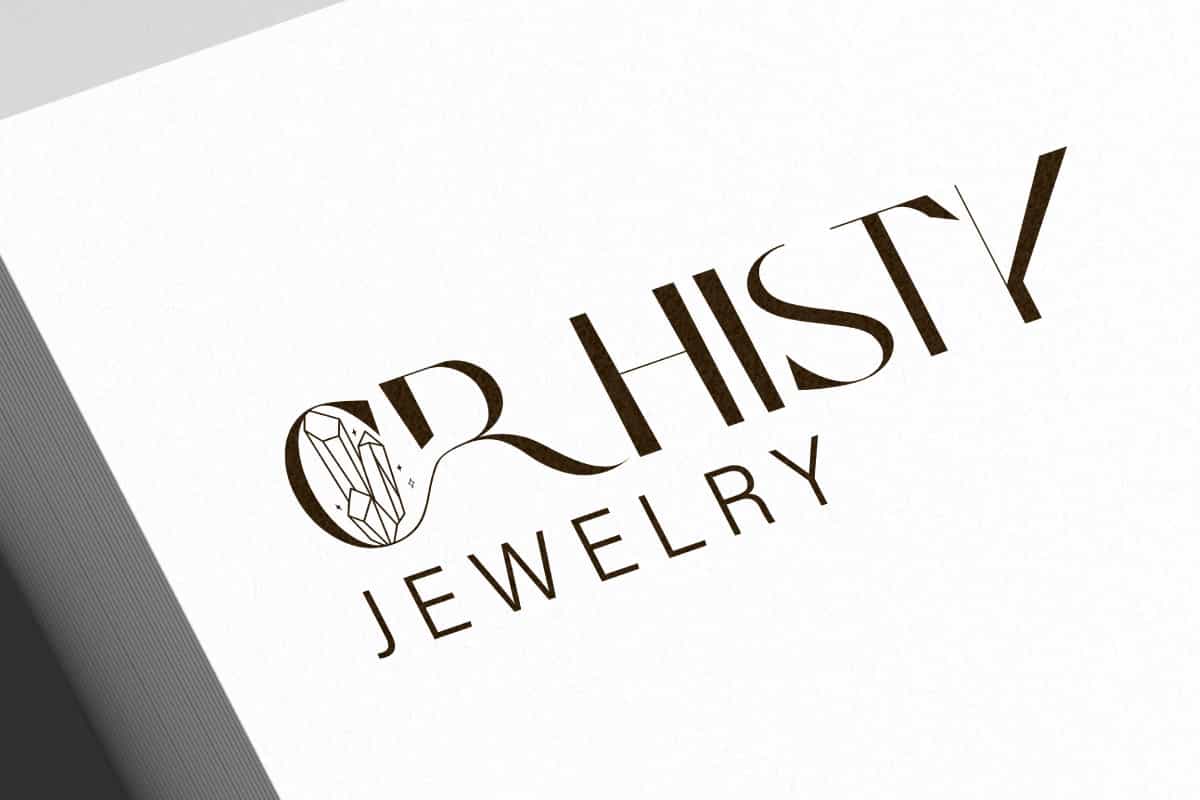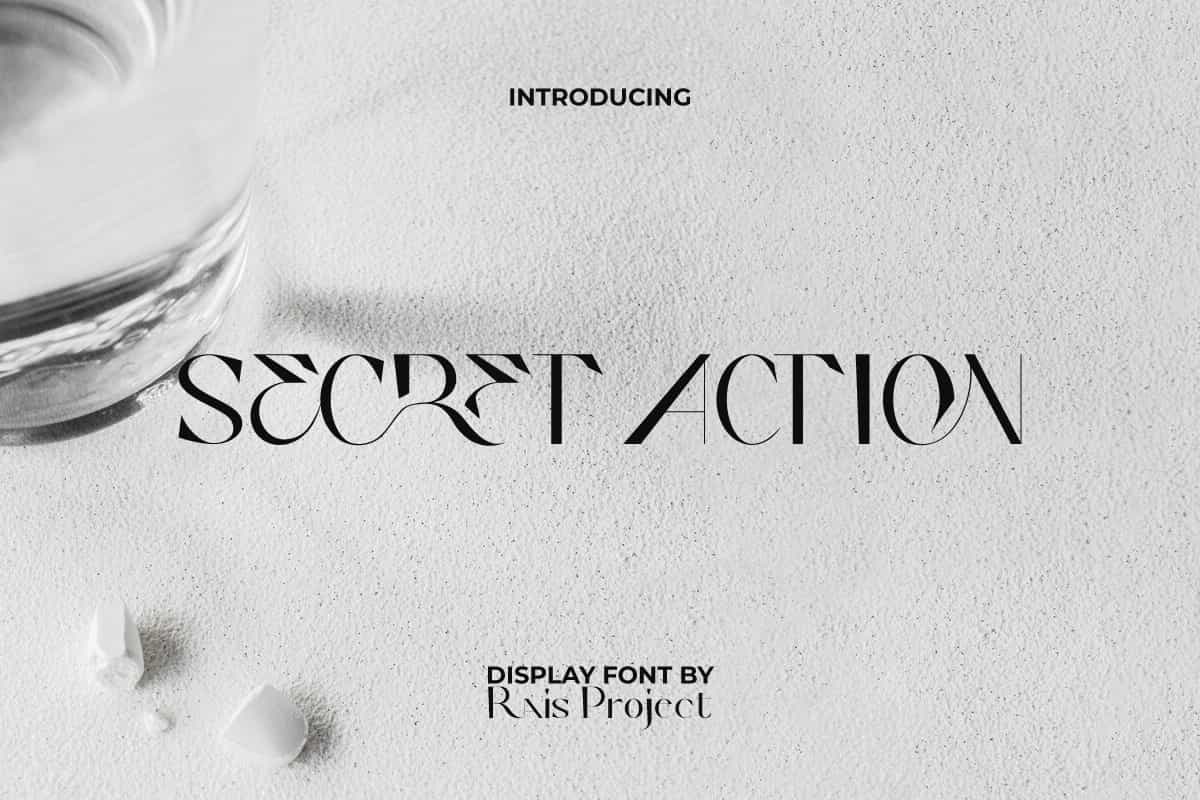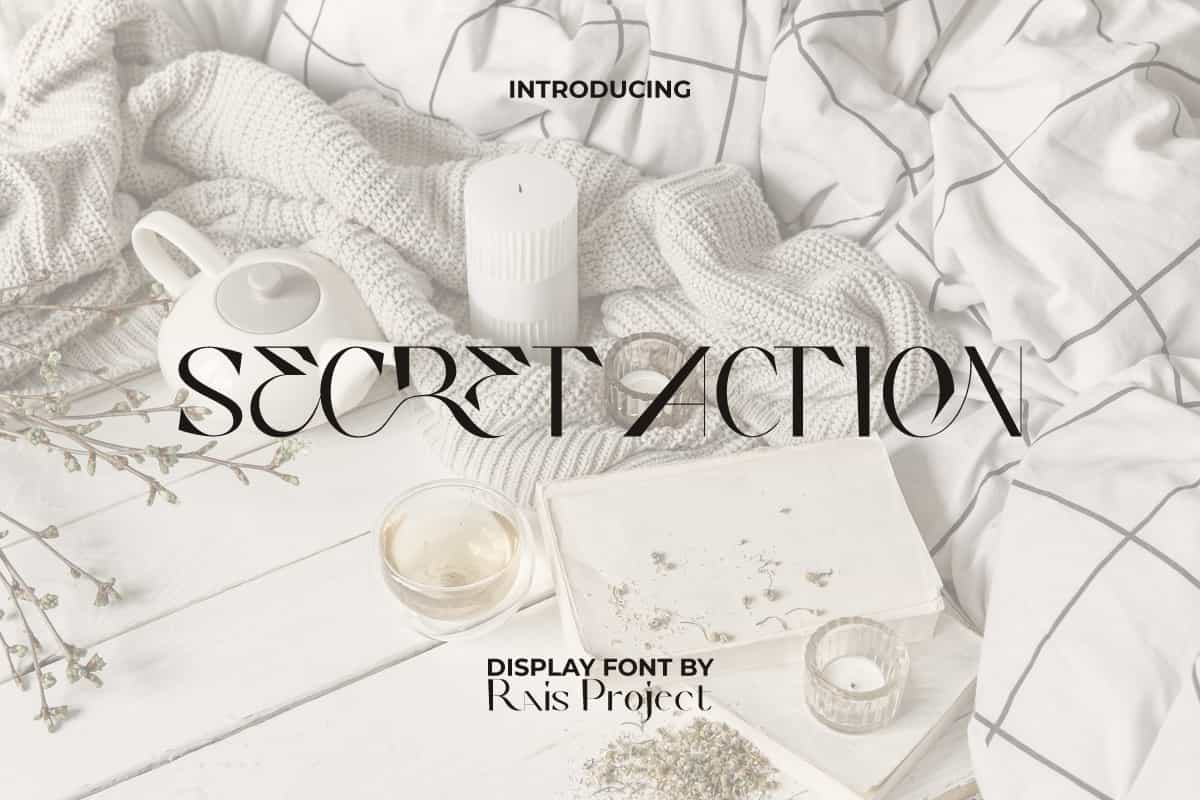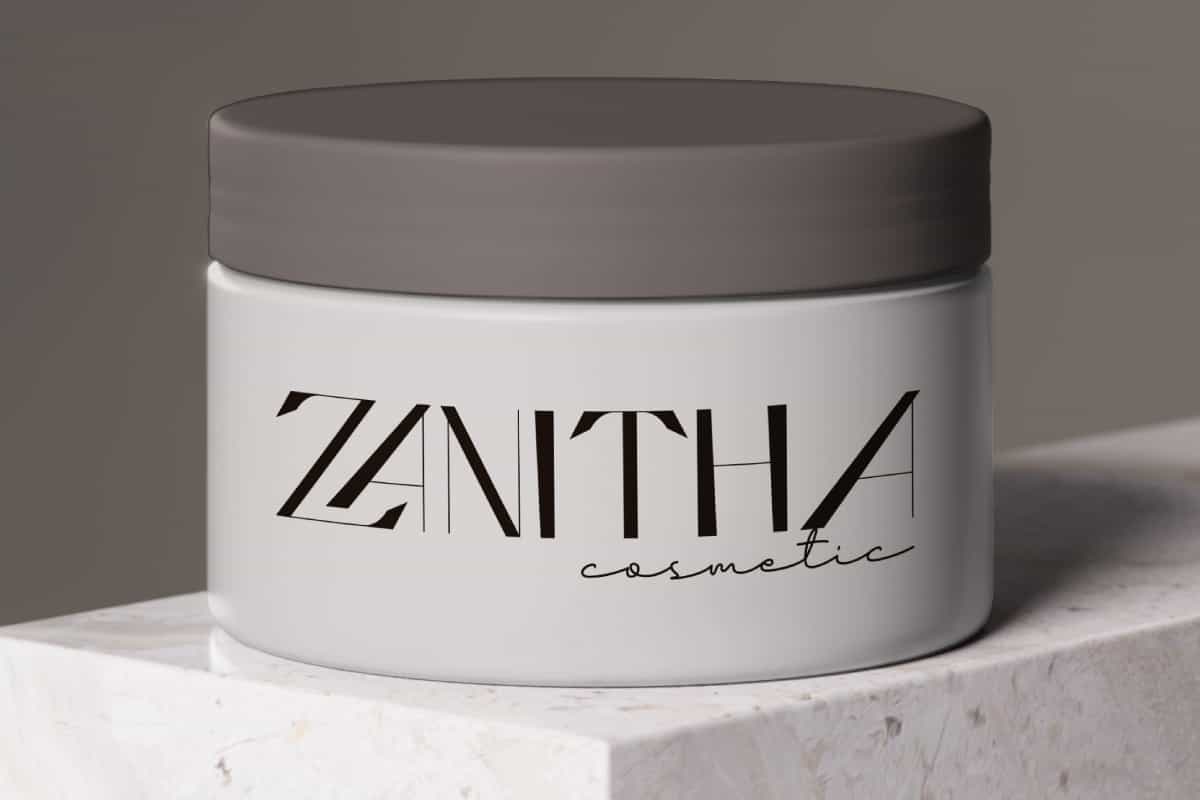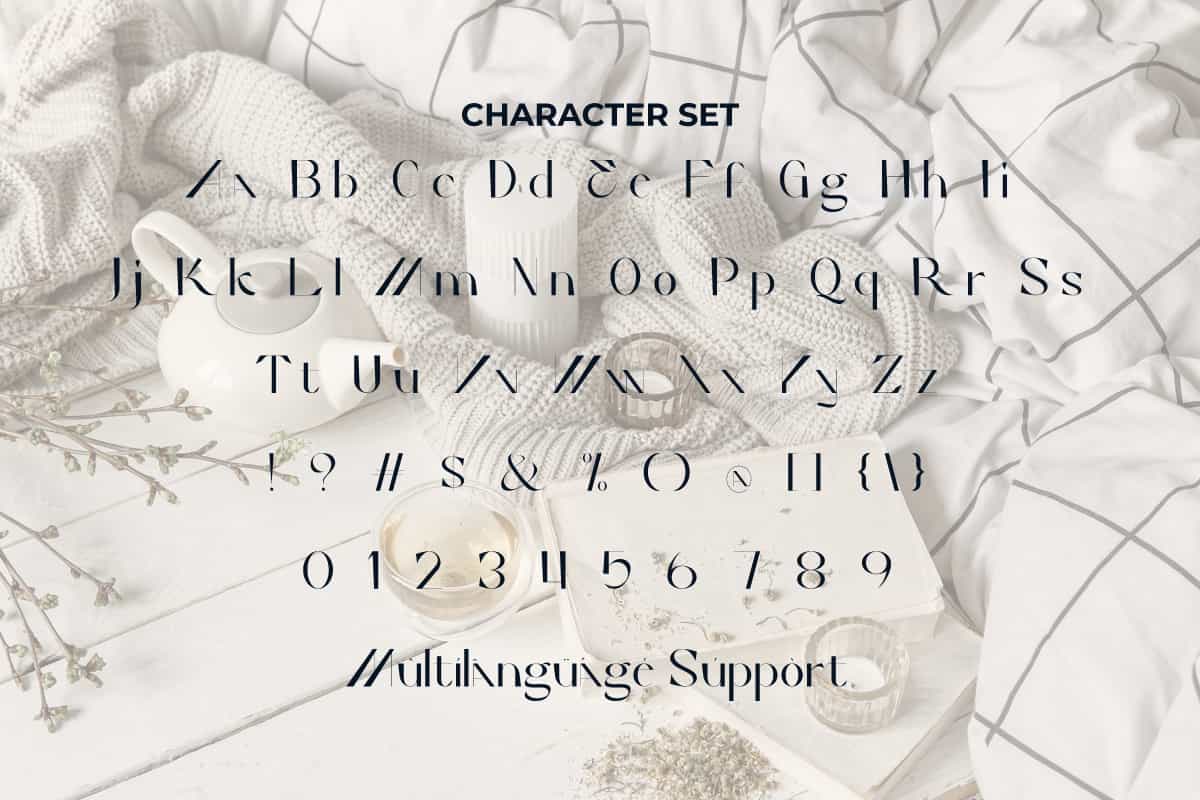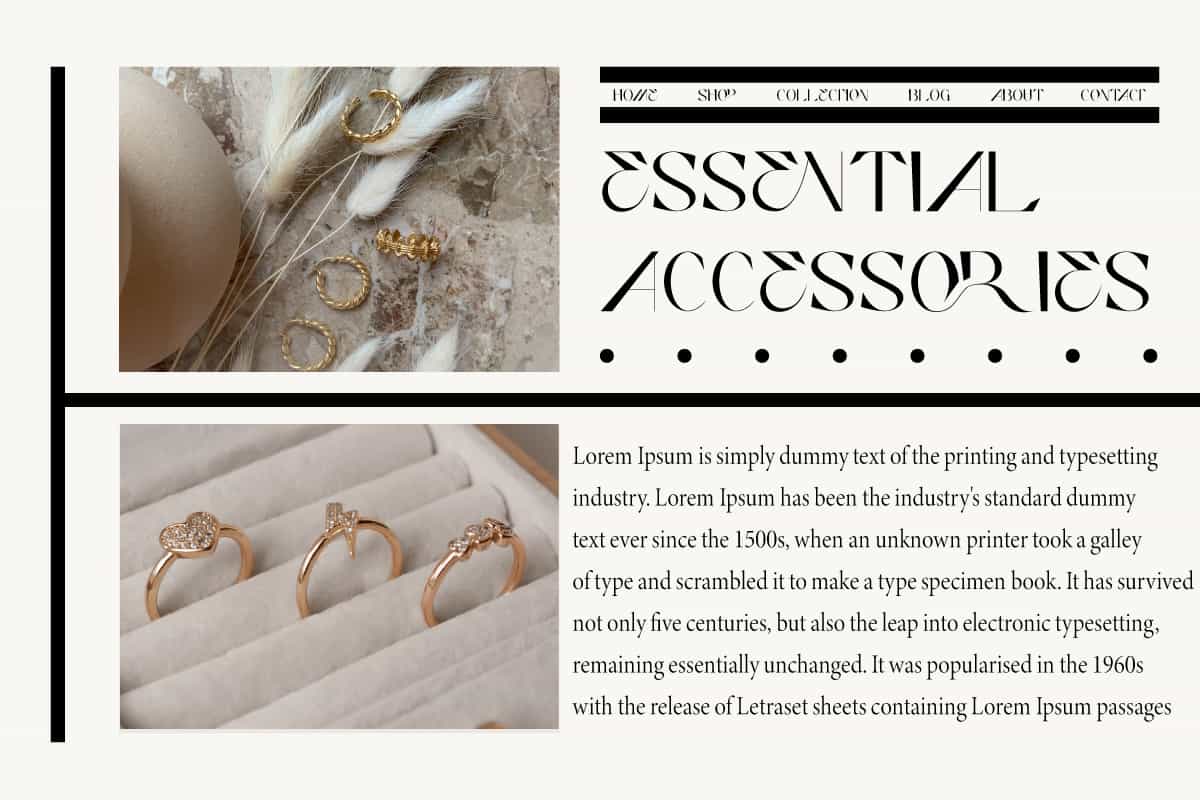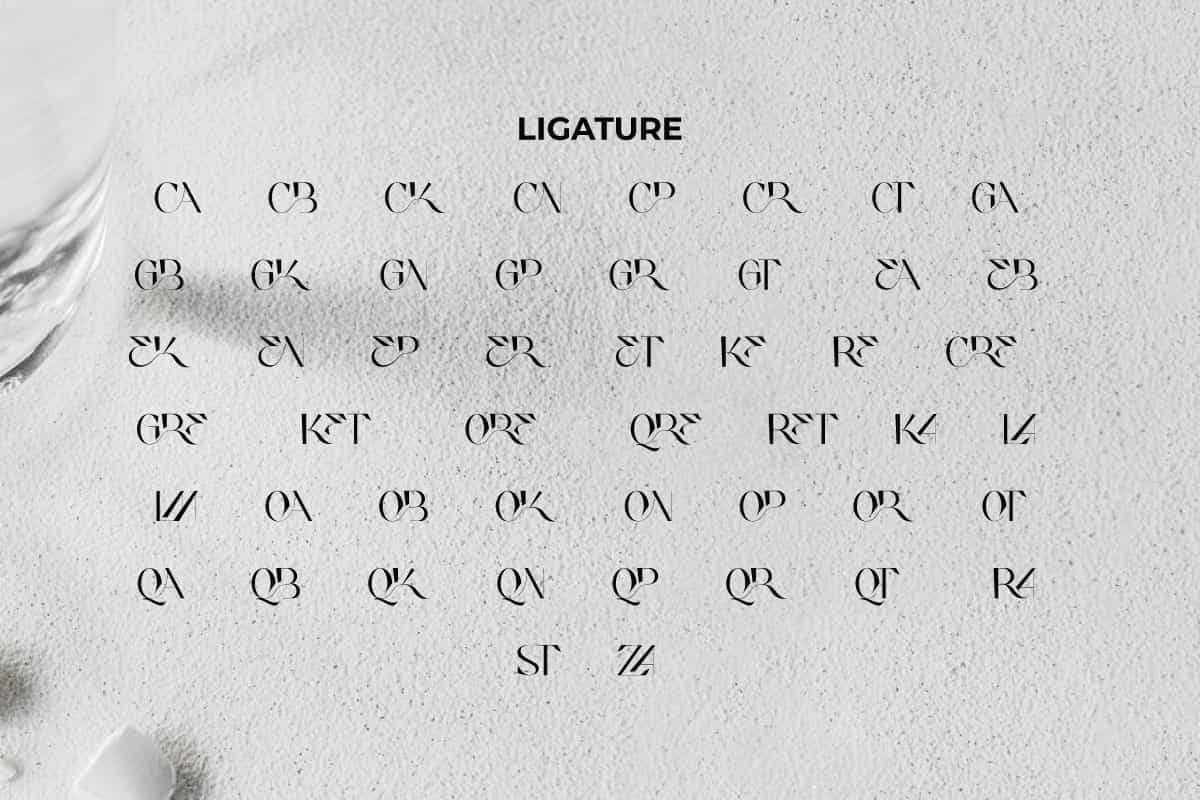
Secret Action Font
Secret Action Font is an aesthetic display font with beautiful unique serif looks. Try add this font to make your design even more awesome!
Secret Action Font is an aesthetic display font with beautiful unique serif looks and exclusive luxurious charm by RaisProject. This font has a combination of thin and thick lines, creating an attractive appearance. It will look good on invitation, stationery, poster, custom design, product packaging, quotes, signage, brand image, advertisement, label, marketing material, website page, and more!
Introducing Secret Action Display Font – a bold, mysterious, and dynamic typeface designed to bring drama, excitement, and power into your creative projects. With sharp strokes, daring lines, and a cinematic-inspired design, Secret Action is the perfect choice for projects that demand attention and intrigue. From movie posters and gaming graphics to branding, advertising, and digital content, this font ensures your designs are unforgettable.
Secret Action Display Font is built to convey strength and suspense, making it ideal for logos, event promotions, merchandise, product packaging, and social media visuals. Whether you’re creating bold headlines, high-energy campaigns, or captivating promotional materials, Secret Action adds intensity and confidence to your designs.
Secret Action Display Font includes a full set of ALL CAPS for Uppercase and Lowercase Letters, Numerals, and large range of Punctuation. This modern font also contain Ligature character that will be suitable for various industries, such as fashion, jewelry, cafe, event or wedding organizer, photography, printing, publishing, etc.